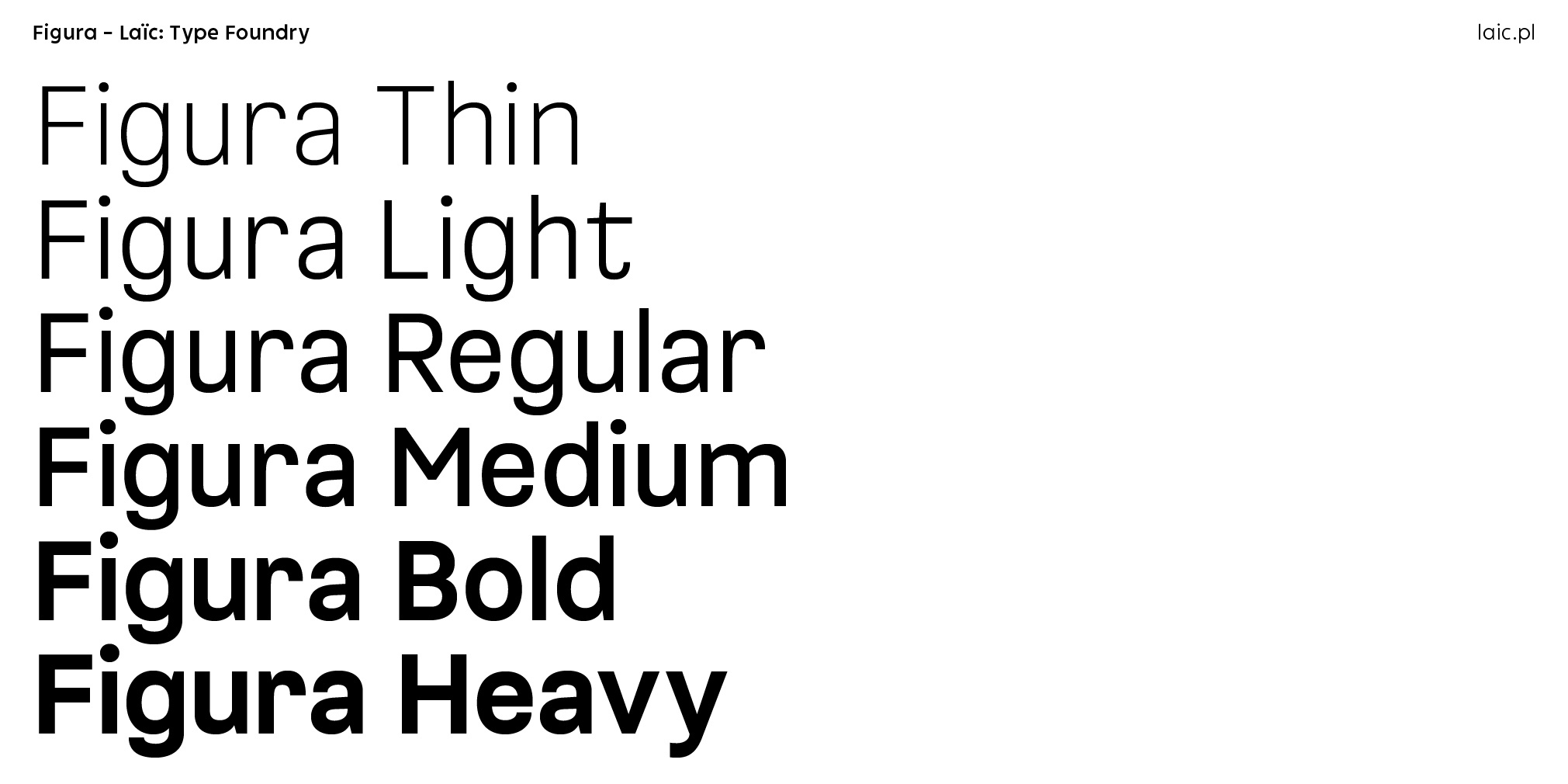
Figura Font
Figura Font excels in contemporary art galleries, geometric design studios, modern architecture presentations, abstract art exhibitions, minimalist brand identities, sculptural product packaging, design theory publications, mathematical visualization projects, systematic design processes, and avant-garde creative portfolios. This sophisticated typeface brings geometric precision and artistic clarity to any form-focused design project.
Figura Font is exciting because it embodies the pure essence of geometric form and mathematical beauty, featuring precisely constructed letterforms that celebrate the fundamental shapes and proportional relationships that define visual harmony. Its sculptural character instantly conveys artistic sophistication, design intelligence, and the systematic thinking that underlies exceptional creative work.
The Figura Font family includes Ultra Light, Light, Regular, Medium, Bold, and Black weights with matching italics, plus geometric alternates, mathematical symbols, and proportional ornamental elements that enhance the systematic aesthetic, providing design professionals with comprehensive tools for creating typography that celebrates form, proportion, and geometric beauty.
Contemporary designers appreciate Figura Font for its exceptional ability to convey systematic thinking and geometric precision through carefully calculated letterforms. The font's mathematical foundation and proportional harmony create immediate associations with design theory, architectural principles, and the systematic approaches that define professional design excellence and creative innovation.
The design philosophy behind Figura Font celebrates the relationship between mathematics and beauty, systematic thinking and creative expression, making it particularly effective for design education, architectural visualization, and creative projects that value geometric precision and proportional harmony. Design teams working on systematic projects find this font essential for communicating design intelligence.
Whether used for contemporary art installations, architectural design presentations, or systematic brand identities, Figura Font delivers the perfect synthesis of geometric precision and artistic sophistication. Its mathematical appeal and design authenticity make it an indispensable choice for organizations that celebrate systematic design thinking, geometric beauty, and the mathematical foundations of exceptional visual communication.